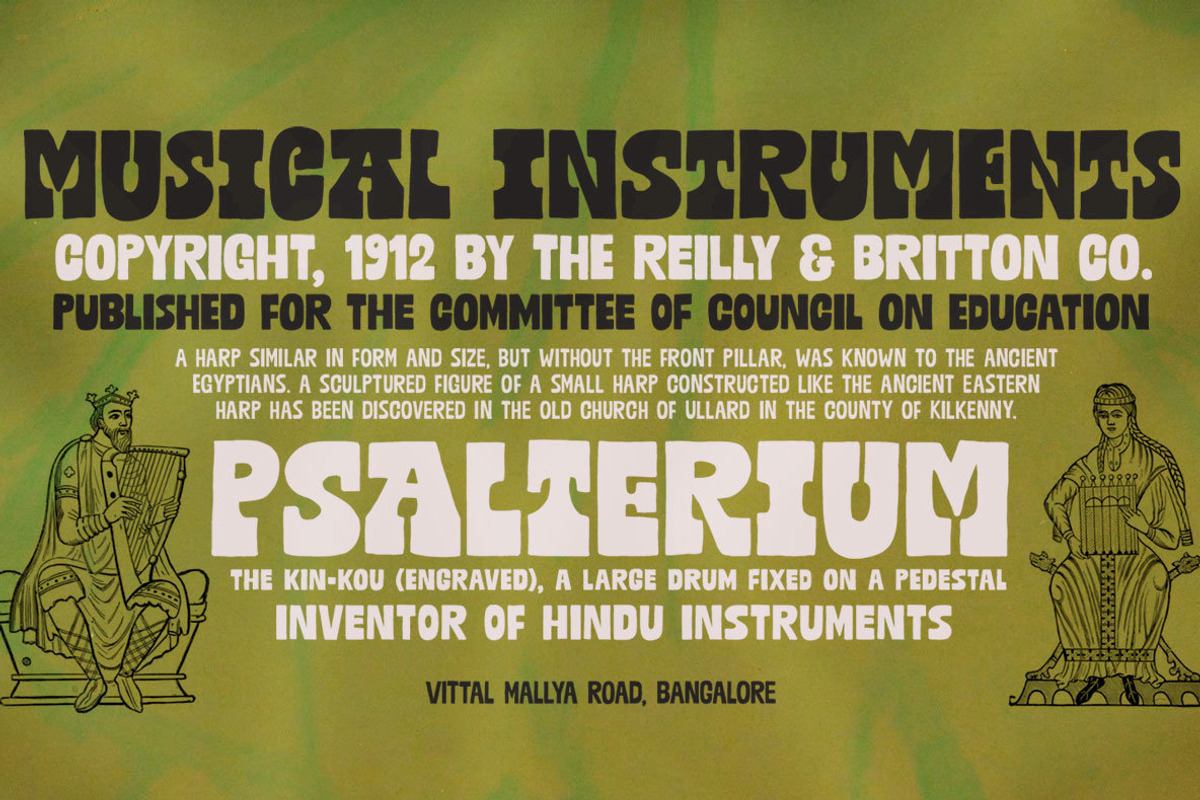
Mudstone Family | 3 Different Fonts Free Download is a versatile typeface family featuring three distinct fonts that offer a range of options for different design projects. With a modern, earthy feel, the Mudstone family is perfect for branding, logo design, headlines, packaging, and more. Whether you're designing for a rustic, vintage brand or a contemporary look, this font family provides the flexibility you need.
The Mudstone Family includes multiple weights and styles, ensuring your designs have both character and readability. Its clean and bold structure, combined with subtle design elements, makes it an ideal choice for both professional and creative applications.